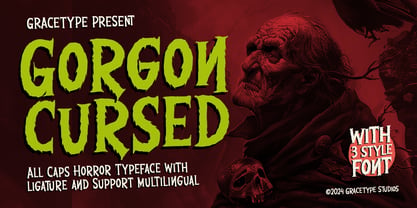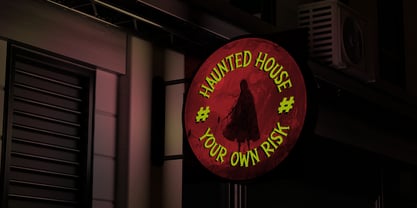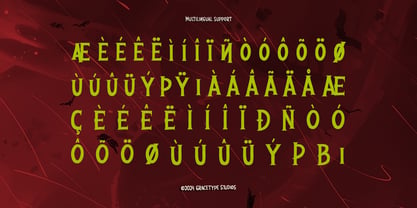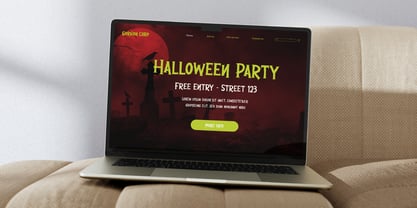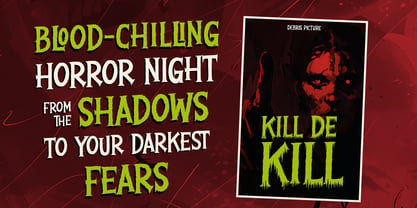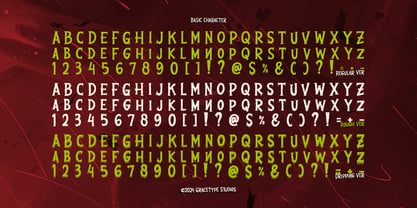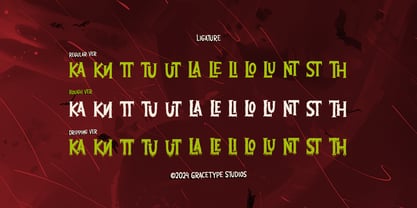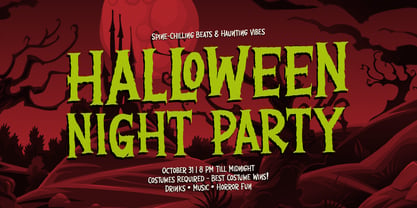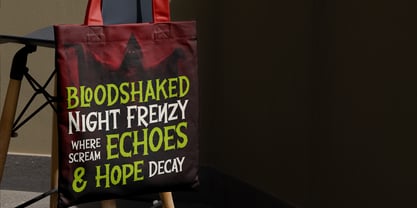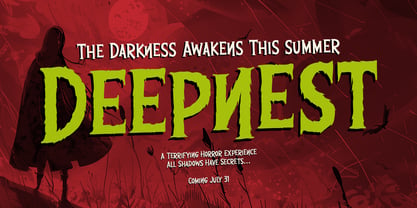
Gorgon Cursed Dripping
The Gorgon Cursed Dripping Font Family was designed by and published by Tini Fitriani. Gorgon Cursed Dripping contains 3 styles and family package options. More about this family
Gorgon Cursed | Horror Typeface, from Gracetypestudio, suitable for any projects such as: logos, branding projects, homeware designs, product packaging, mugs, quotes, posters, shopping bags, t-shirts, book covers, name card, invitation cards, greeting cards, label, photography, watermark, special events, and all your other lovely projects that need a Horror taste.